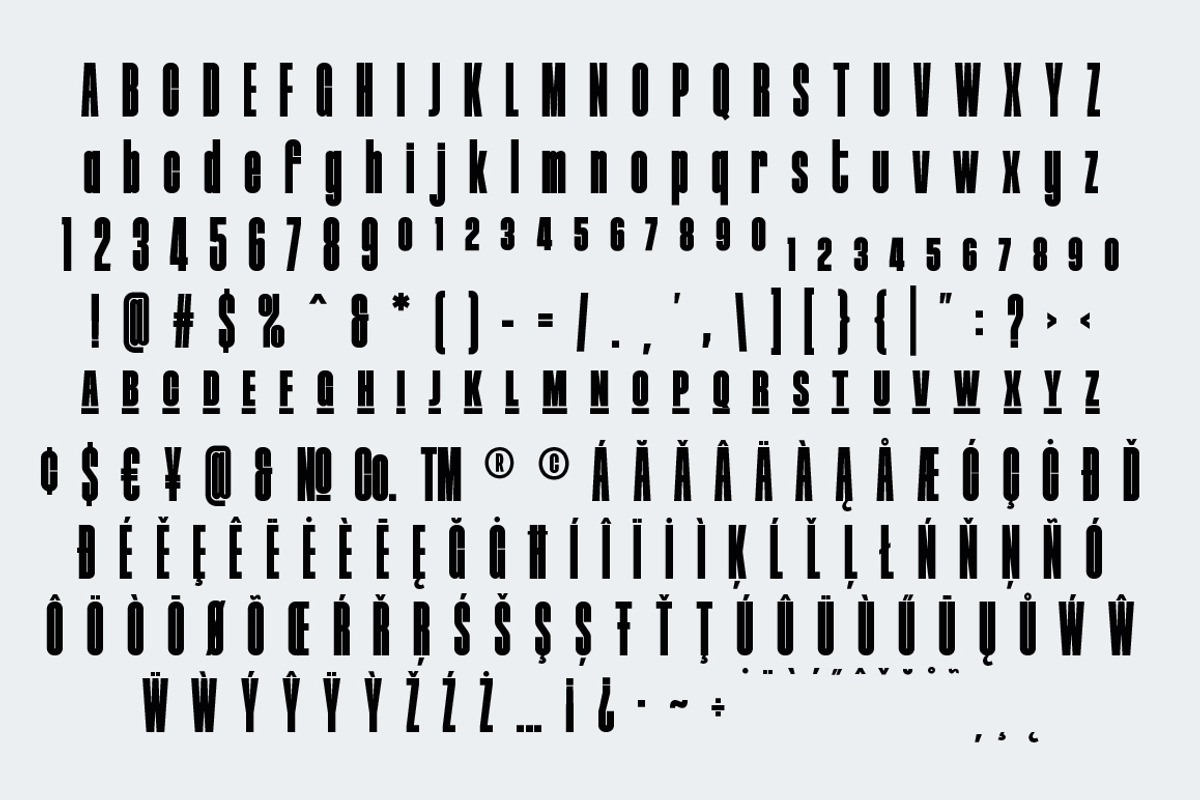
Neumatic Compressed
Neumatic Compressed is a super compressed Font family with some tight kerning to match. Perfect for posters, display copy, headlines, magazine headline copy. It comes in 8 weights from extra light to Black so it's versatile. It extra light weight can give you some great height due to how narrow it is. Play around with the opentype Superscript with an underline or the Opentype stylistic sets which turns the default squared dots on i's, j's and punctuation to round dots.